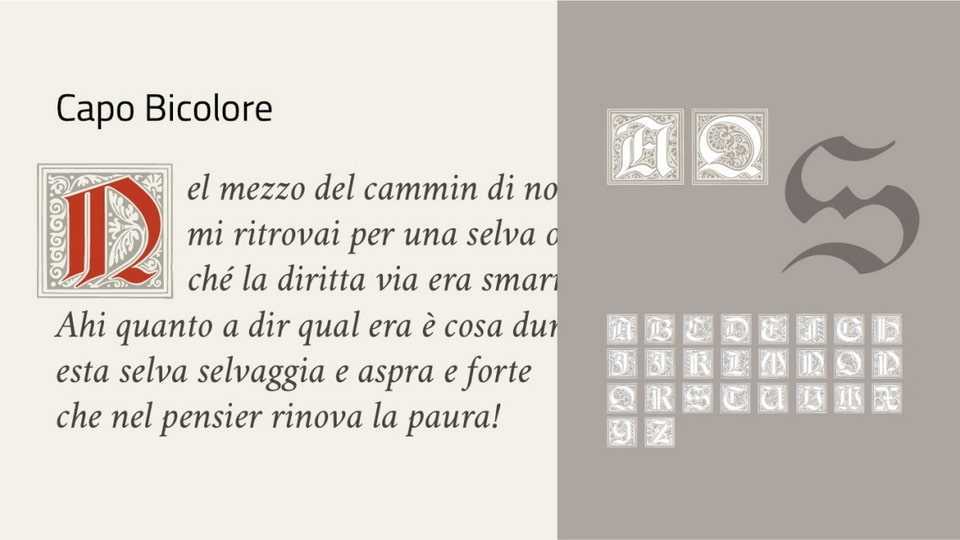
Download Capo Bicolore font, a decorative typeface inspired by the Gothic initials published by Ludwig Petzendorfer in 1894.
Designer: Michele Casanova